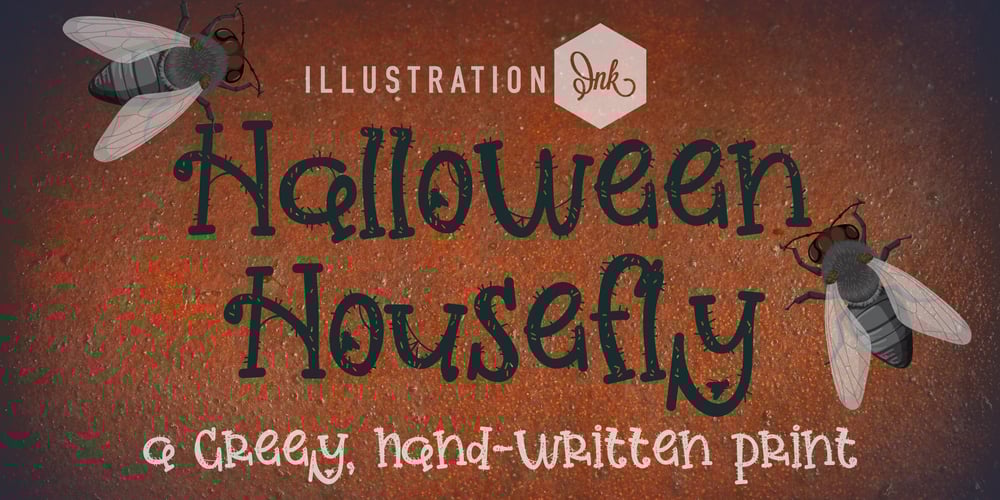
PN Halloween Housefly Font Family was designed by Illustration Ink and published by Illustration Ink. PN Halloween Housefly contains 1 styles and family package options. This hand-written print sports hand-crafted, slab serif, lots of “hair” and housefly silhouettes and webbing.A hand-crafted font is a font that is designed to look like it was written by hand. It is often used for invitations, greeting cards, and other items. Handwritten fonts can be either formal or informal, and they can be used for a variety of purposes.Some of the characteristics of handwritten fonts include: The letters are not perfectly uniform in size or shape. There may be slight variations in the spacing between letters and words. The font may have a “wiggly” or “squiggly” appearance. The font may be difficult to read at small sizes. Handwritten fonts can be a great way to add a casual touch to your designs. They can also be used to create a sense of nostalgia or whimsy. However, it is important to choose a handwritten font that is appropriate for the project you are working on. A formal handwritten font may not be appropriate for a casual invitation, while an informal handwritten font may not be appropriate for a corporate document.